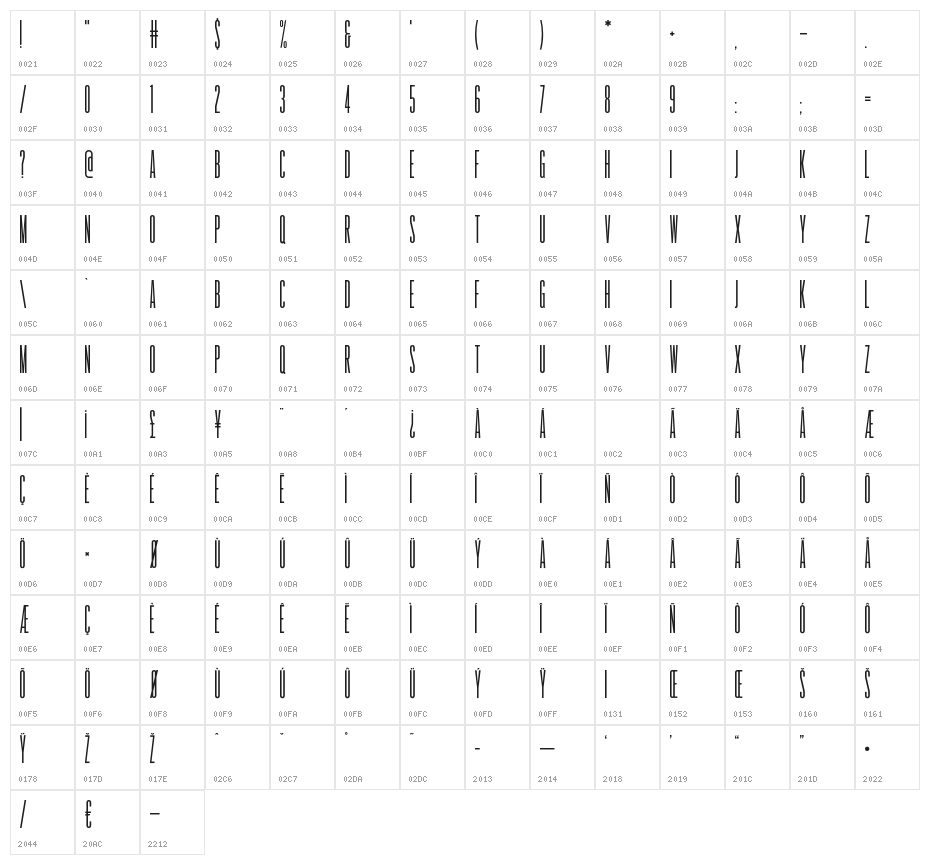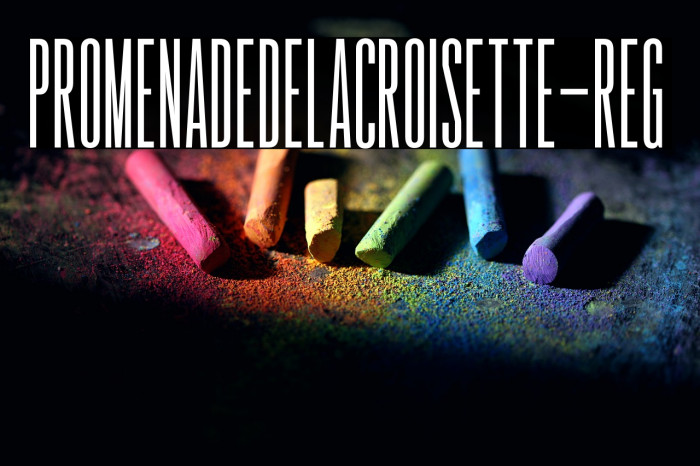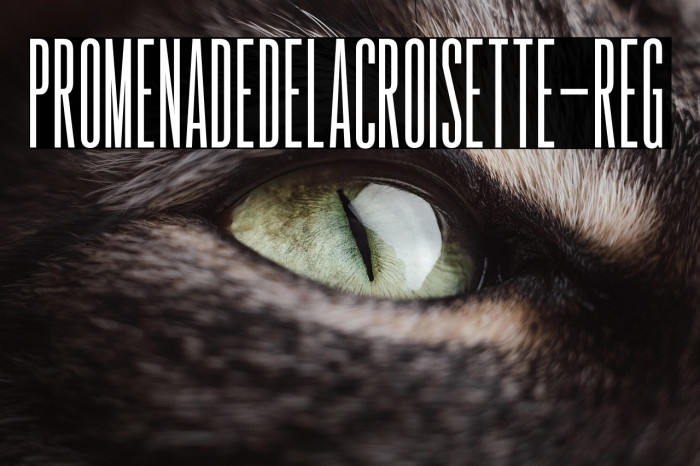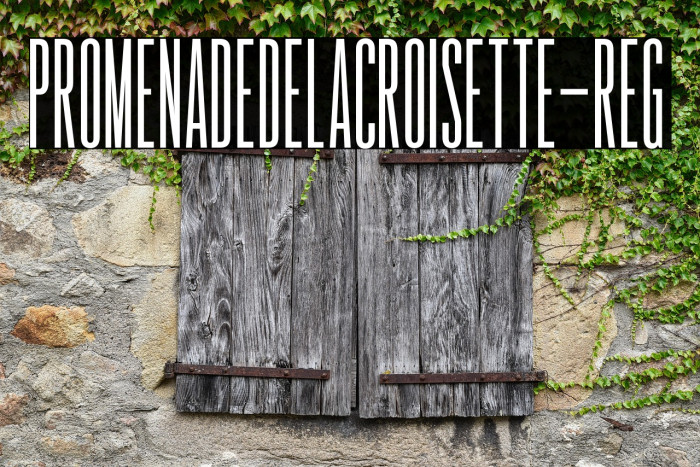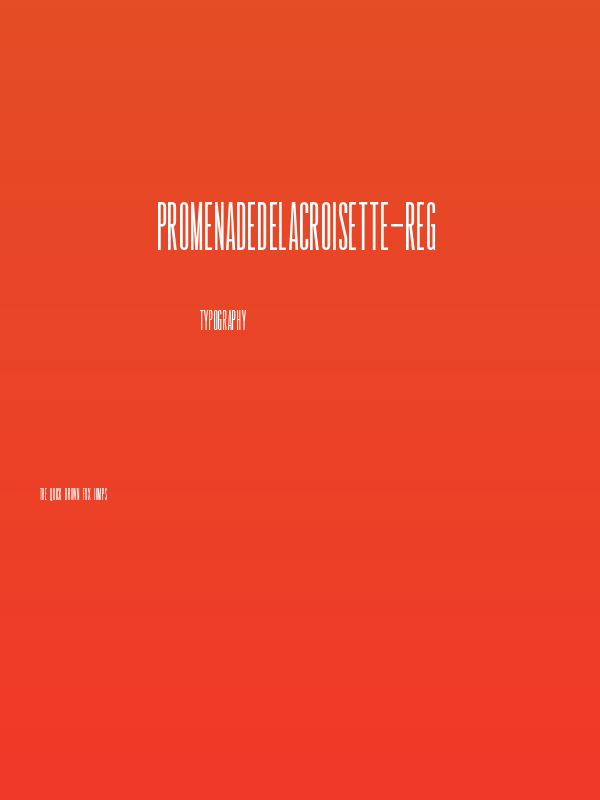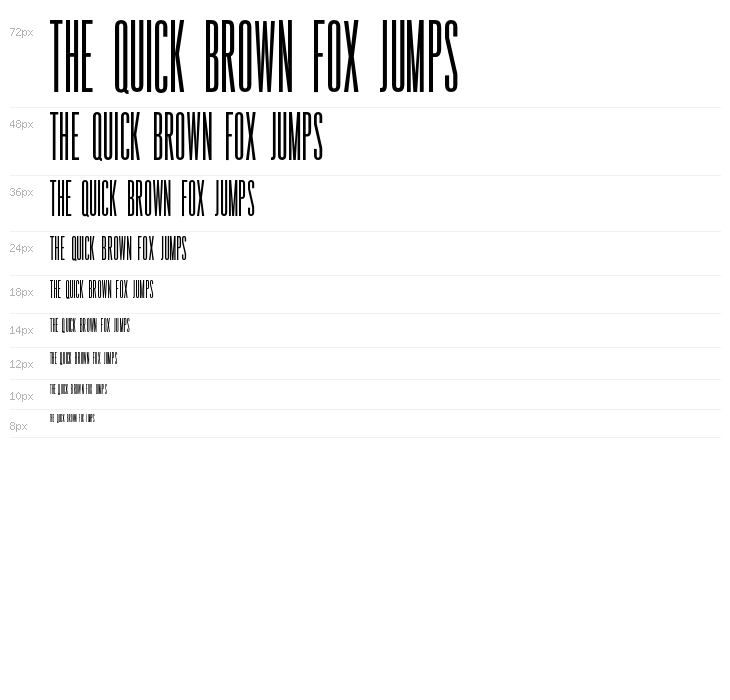
PromenadedelaCroisette-Reg Font
PromenadedelaCroisette-Reg Description
This font features tall, narrow characters with a distinctly modern and elegant appearance. The uppercase letters are elongated, giving a sense of sophistication and style. The lowercase letters maintain a consistent height, complementing the uppercase with a refined look. Numbers are similarly slender, fitting seamlessly with the overall aesthetic. Special characters are designed with the same narrow proportions, ensuring uniformity across all glyphs. The clean lines and minimalistic design make it suitable for contemporary projects that require a touch of class.
| Proposed Projects | Ideal for fashion magazines, luxury branding, high-end product packaging, and modern editorial design. |